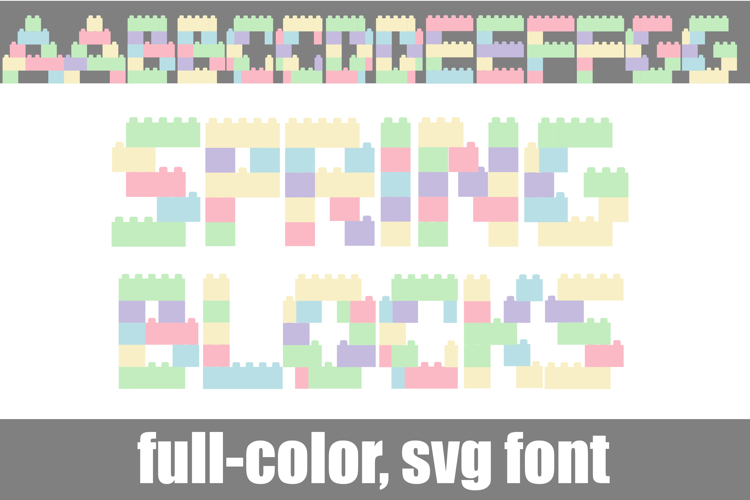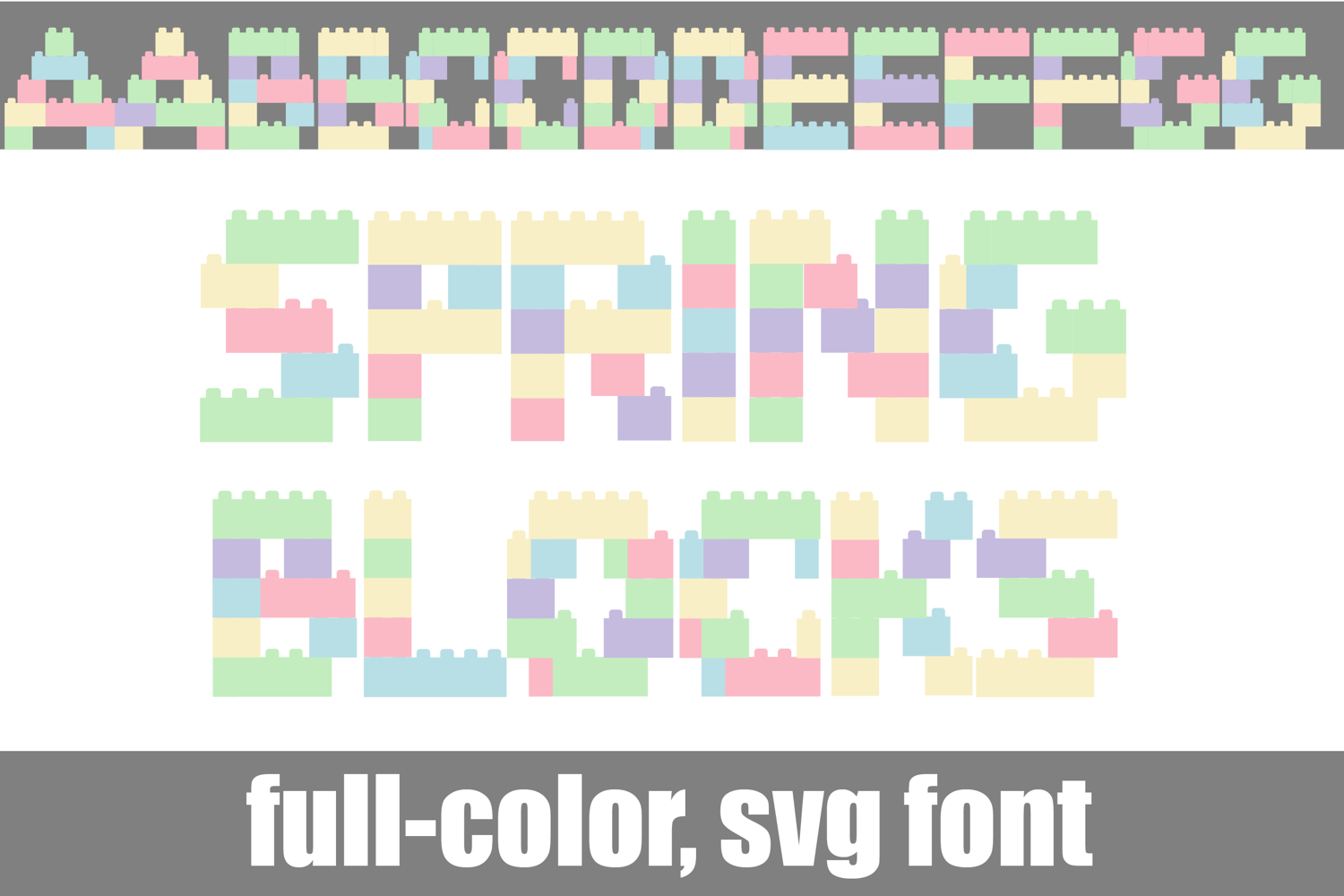
Spring Blocks Color Font
This full-color, sans serif font in springy palette of interlocking blocks. There is an alt case of additional colors of each letter that you can access through your system's character map.